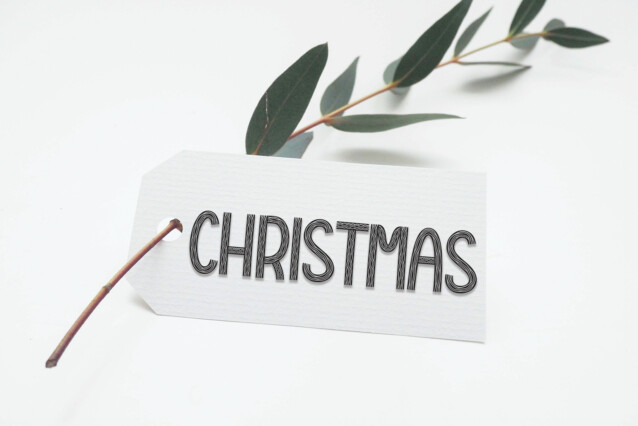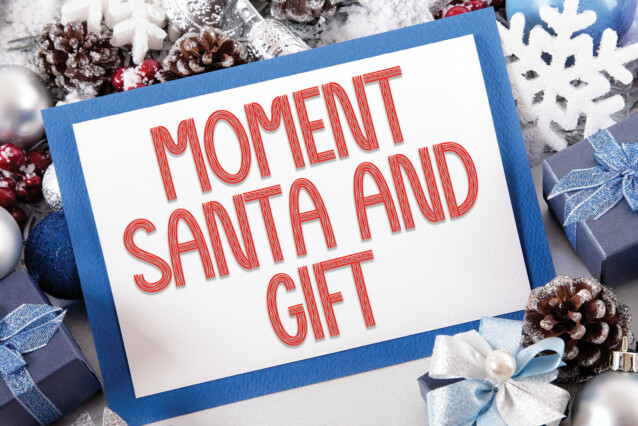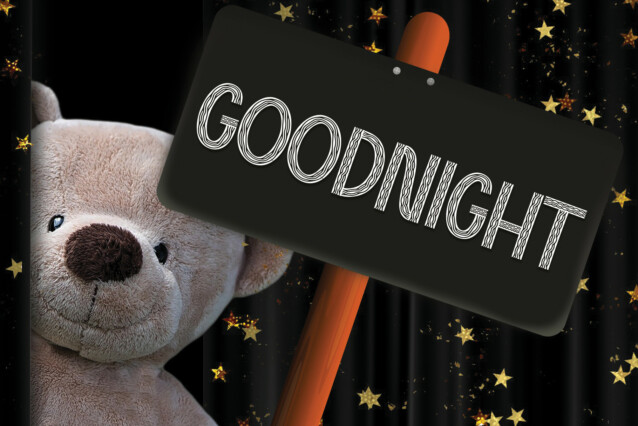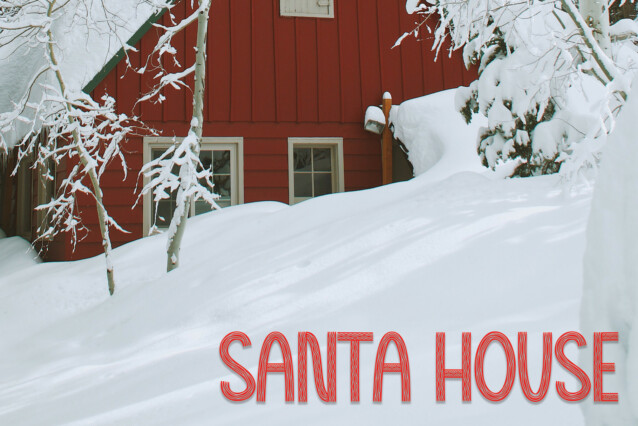
Christmas And Candy Display Font
Christmas And Candy Display Font is a cool and unique display font. Add it confidently to your projects and enjoy the results!